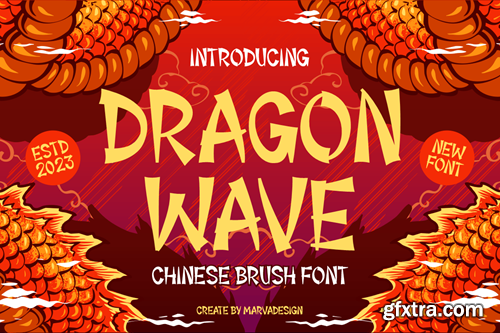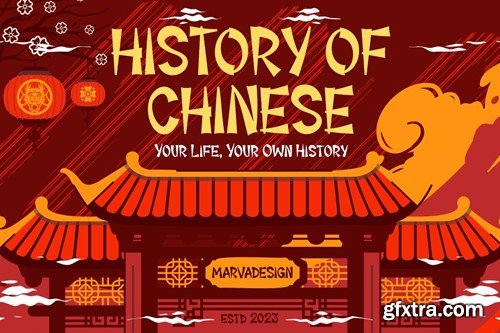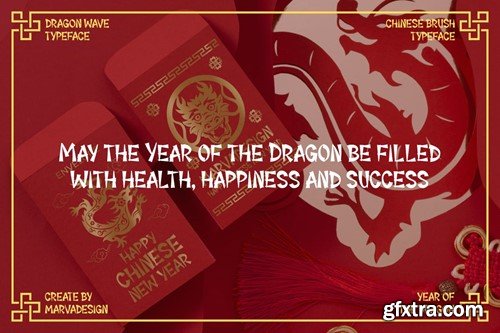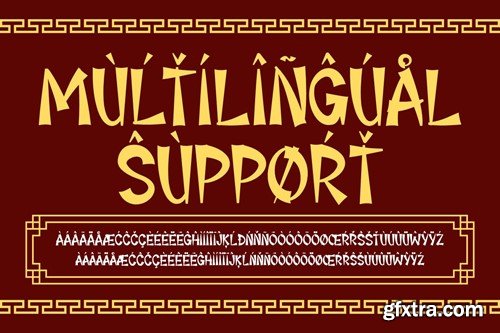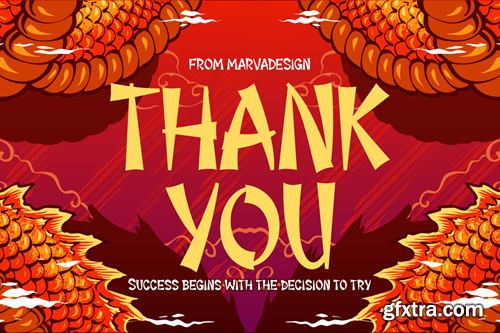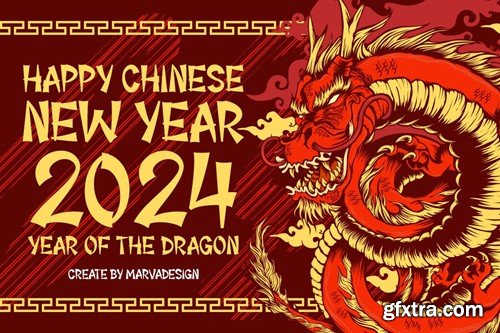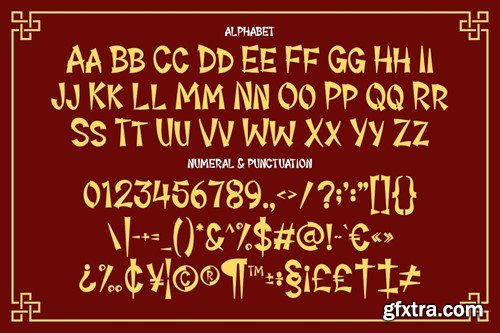
龙波 - 现代中国毛笔书法 5AJXFGX
Dragon Wave - Modern Chinese Brush Font 5AJXFGX
Dragon Wave - Modern Chinese Brush Font
Introducing our new product Dragon Wave - Modern Chinese Brush Font authentic display font. The font is suitable for any branding project like logo, Template Design, Product and many more. outstanding in a wide range of contexts.
• Uppercase
• Lowercase
• Multilingual